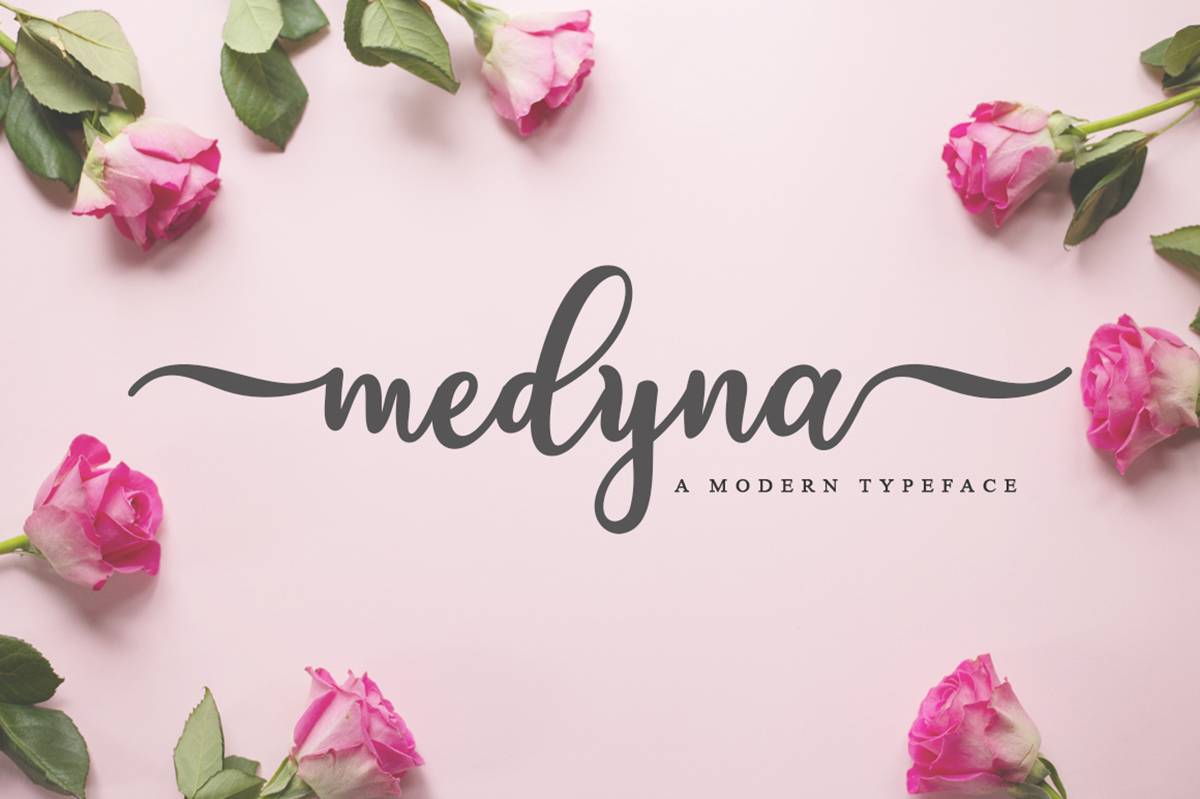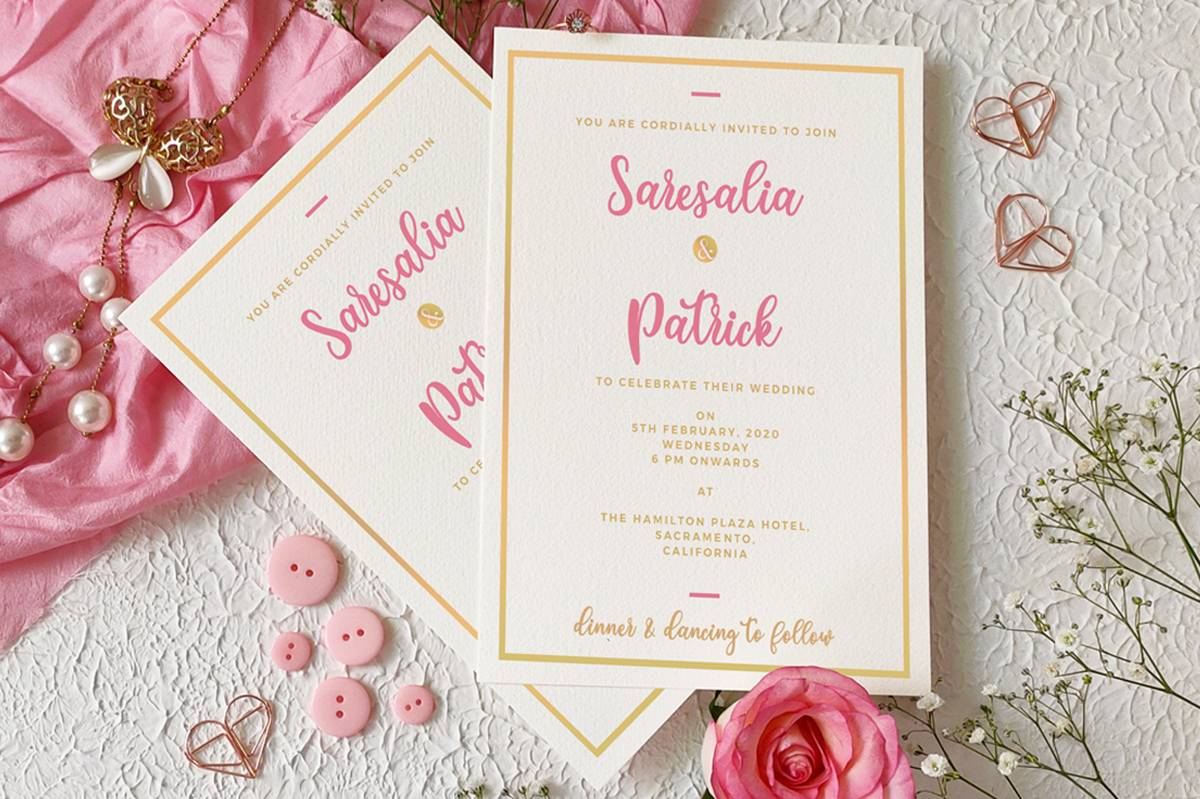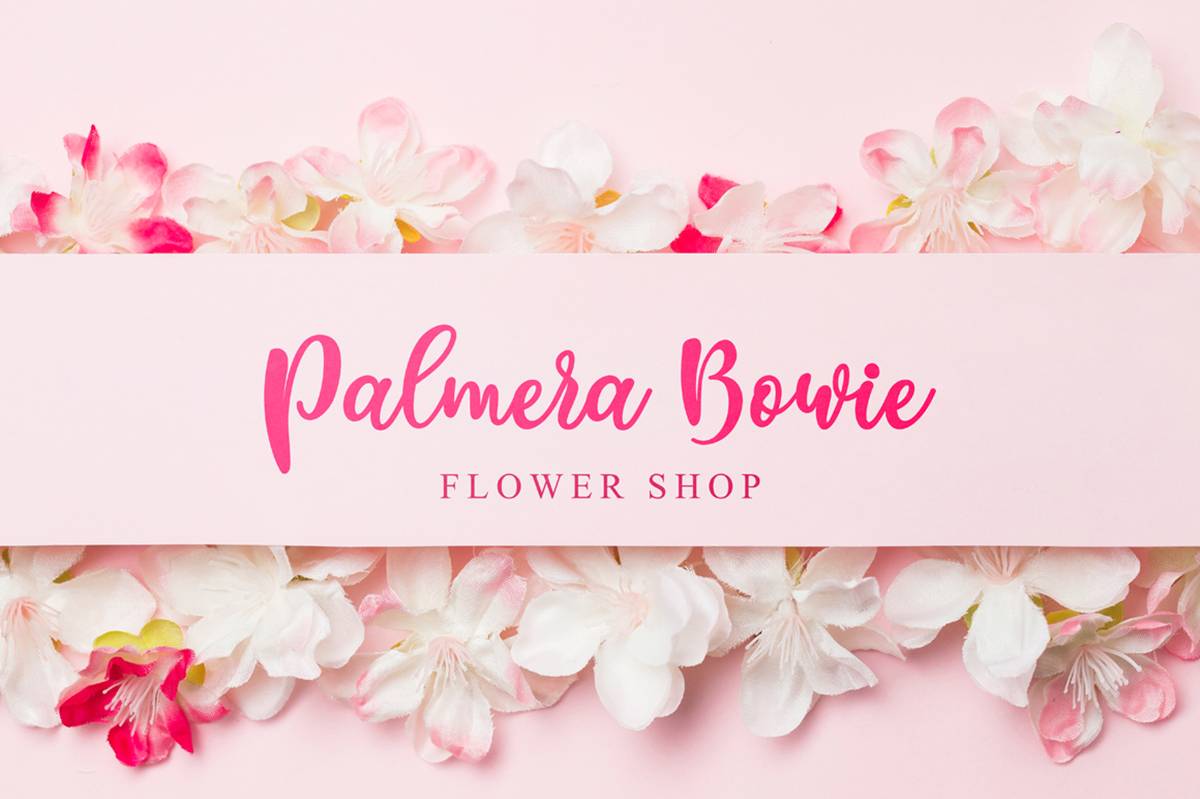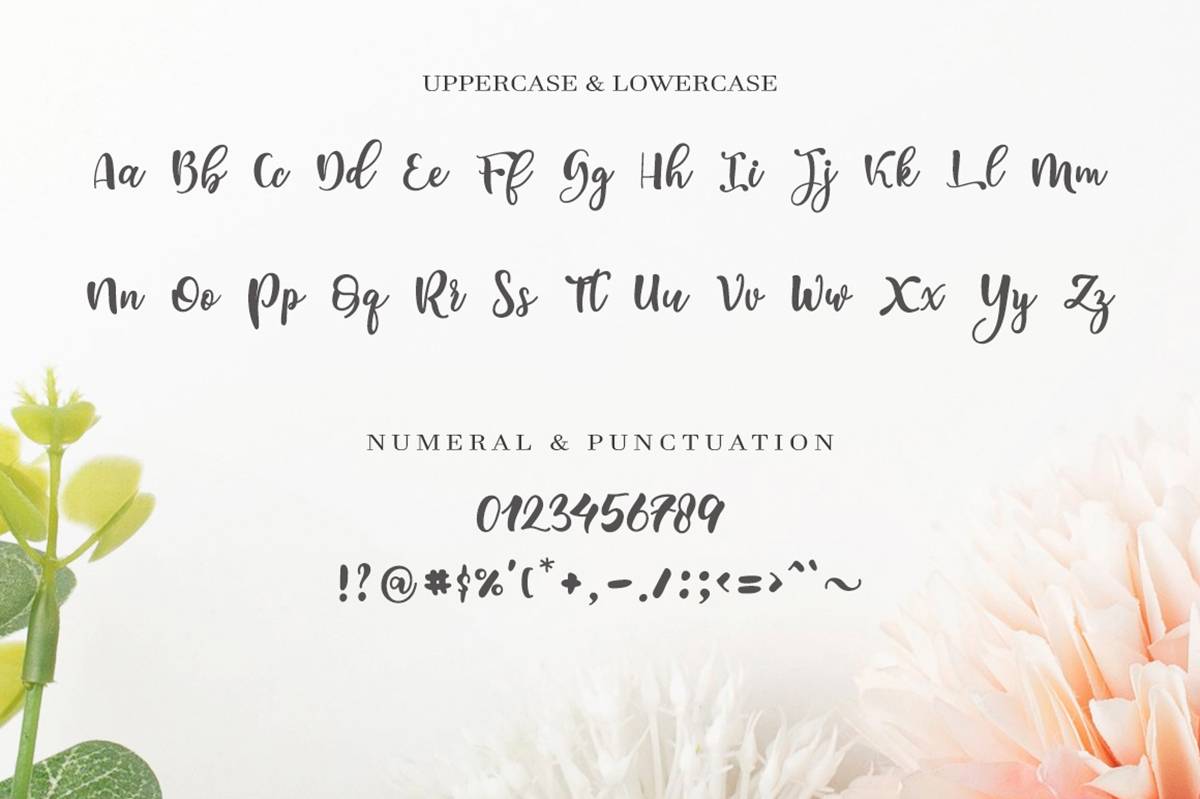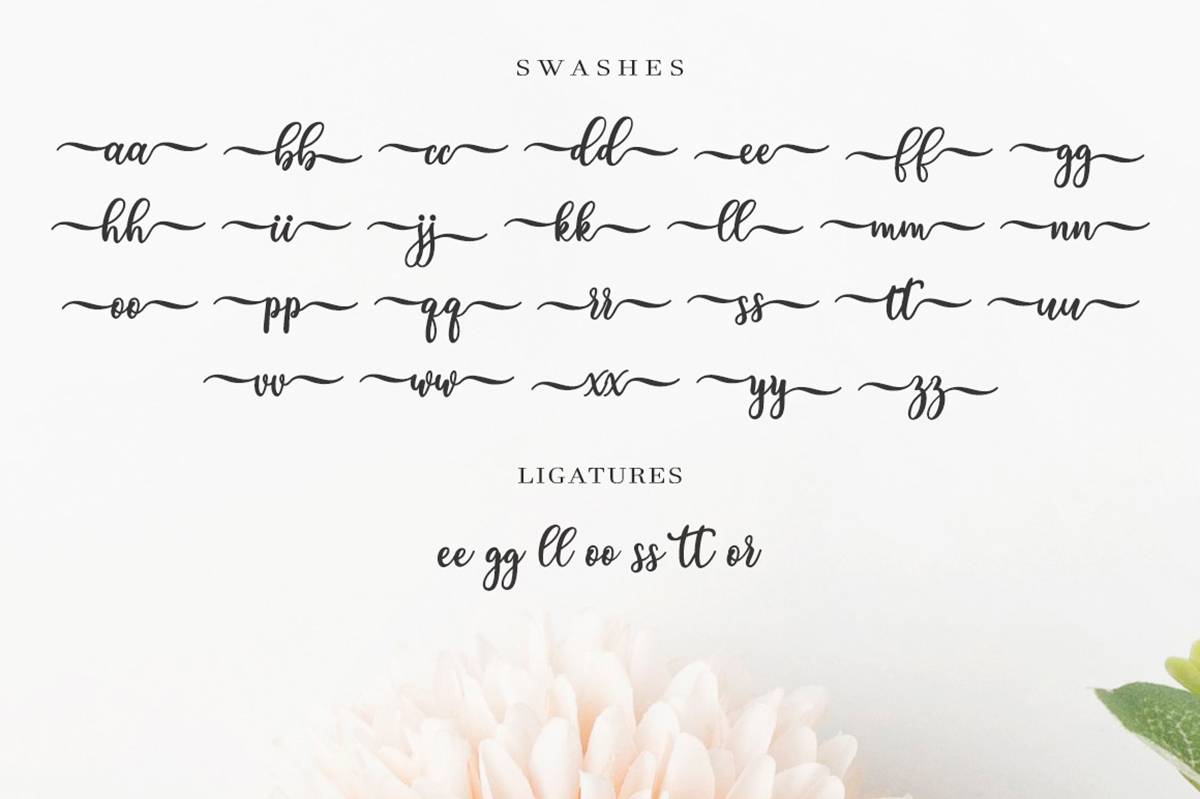
Medyna is a lively and elegant script font with a smooth, hand-lettered feel that combines both bold and delicate strokes for a friendly yet stylish look. Its flowing letterforms and playful curves make it perfect for branding, invitations, and creative projects that want to convey warmth and personality. This font works especially well in headlines and logos where a personal, approachable touch is desired.
Medyna Font
About Medyna Font
| Font family | Medyna Font |